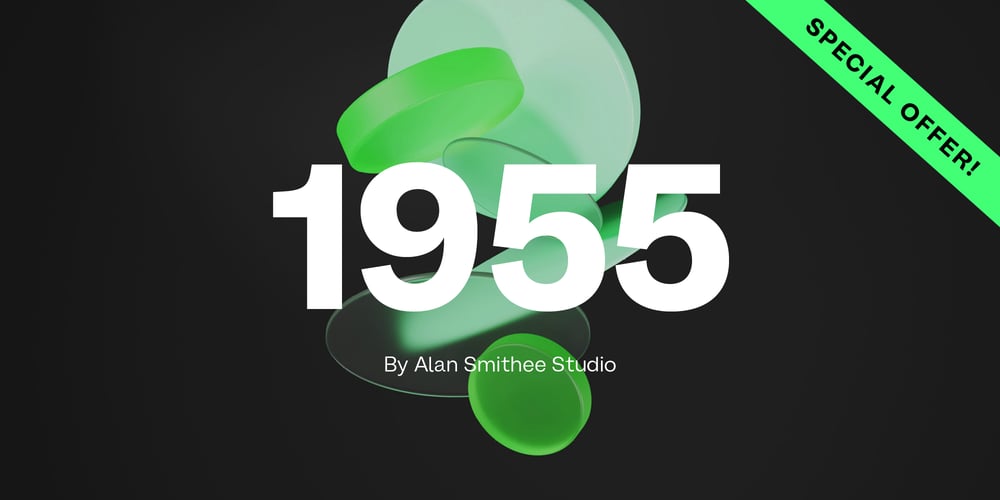
1955 Font Family was designed by Alan Smithee and published by Alan Smithee Studio. 1955 contains 12 styles and family package options. 1955 Is a fresh grotesque interpretation. Any detail too historically referenced is replaced by strong geometry and idiosyncratic features. Round dots and punctuation, curved “l” foot, single storey “g” etc. all these details make 1955 a very contemporary typeface (unlike the name suggests!). With a range of weights going from Thin to Black including Italics, OpenType Features, extended character-set, tailored for print and digital, 1955 has everything to become your new go-to typeface for every project!